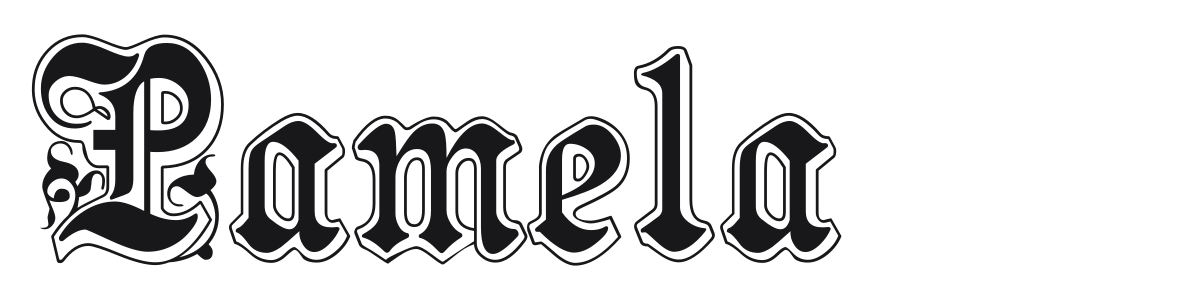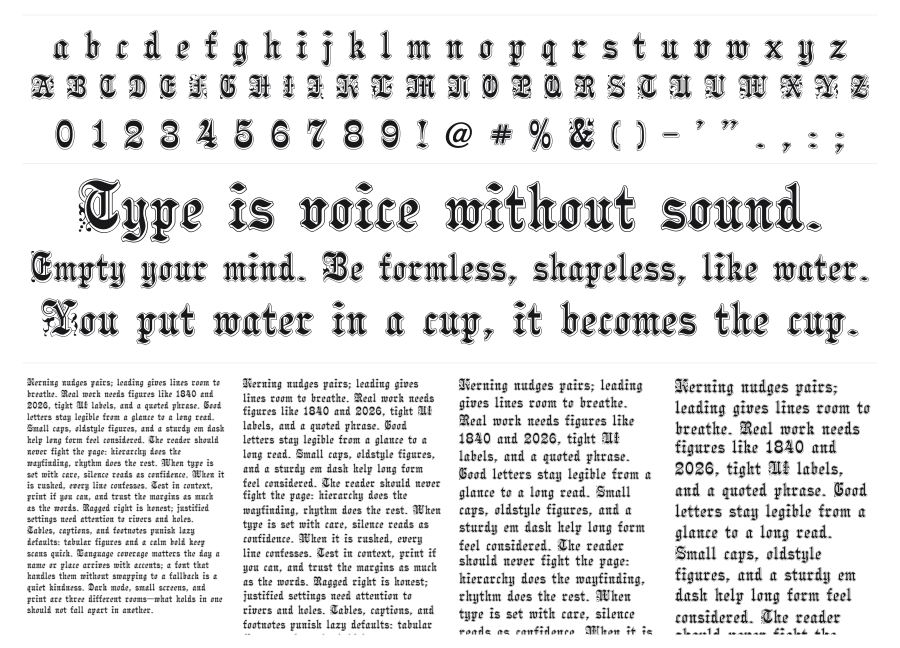
Pamela
Pamela is a bold Gothic blackletter with a striking inline outline effect that gives the characters a layered, dimensional quality. The heavy strokes, angular forms, and sharp diamond terminals are classic blackletter tradition, amplified by the decorative secondary outline. Strong in large-format display contexts where medieval drama is the point.